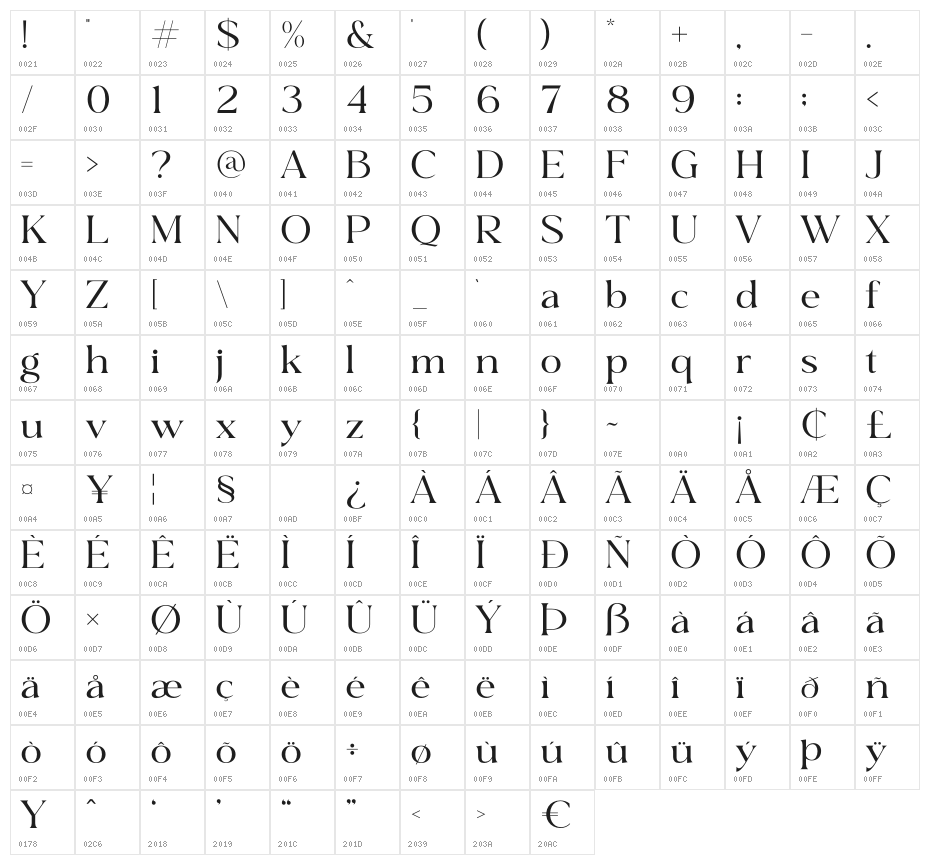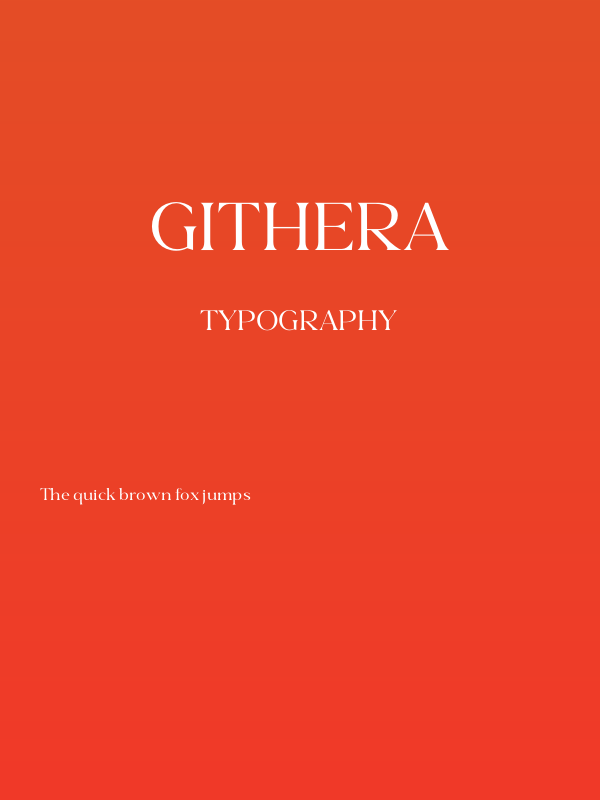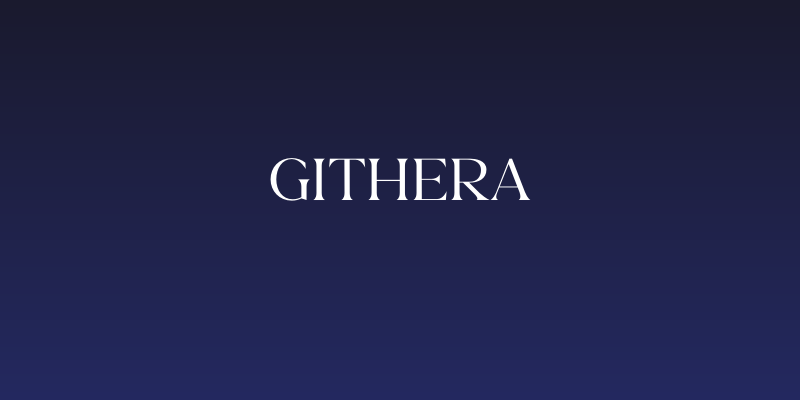
Githera Font
Githera Description
This font exudes a classic elegance with its high contrast between thick and thin strokes, typical of a serif typeface. The serifs are sharp and pronounced, adding a touch of sophistication and formality. The uppercase letters are tall and commanding, while the lowercase letters maintain a balanced and harmonious appearance. The numerals are clear and distinct, making them easily legible. Special characters are designed with the same attention to detail, ensuring consistency throughout the typeface. This font is ideal for projects that require a touch of class and readability.
| Overall Style | Classic |
| Use Case | Headlines, Body text, Logos |
| Proposed Projects | Ideal for use in editorial design, book covers, formal invitations, and branding materials that require a sophisticated touch. |